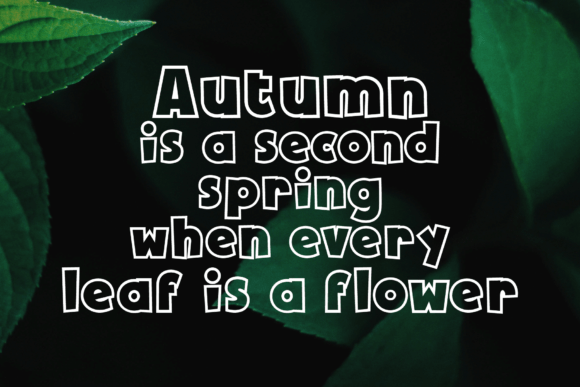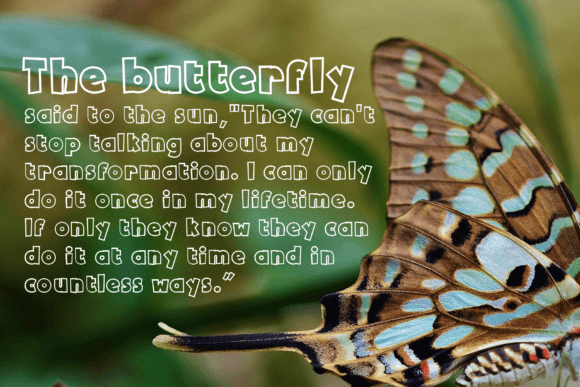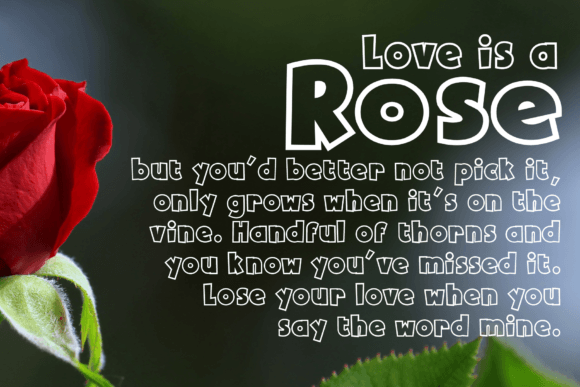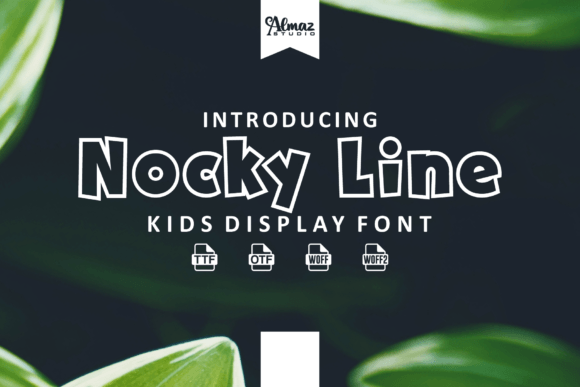
Introduction to Nocky Line Font
Nocky Line is a fun and casual display font.
Whether you use it for cartoon-related designs, children games or just any creation that requires a lovely touch, this font will be an amazing choice .